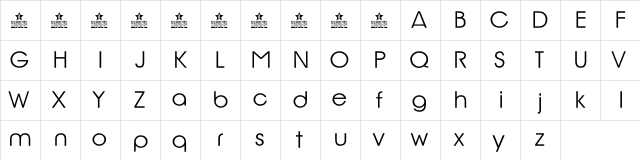
Rio Glamour personal use Regular
| Foundry | Billy Argel Fonts |
| Designer | BILLY ARGEL |
Design Context for Rio Glamour personal use Typeface
Rio Glamour personal use takes a measured approach to typography — its balanced proportions and neutral character make it a reliable workhorse for both digital and print work.